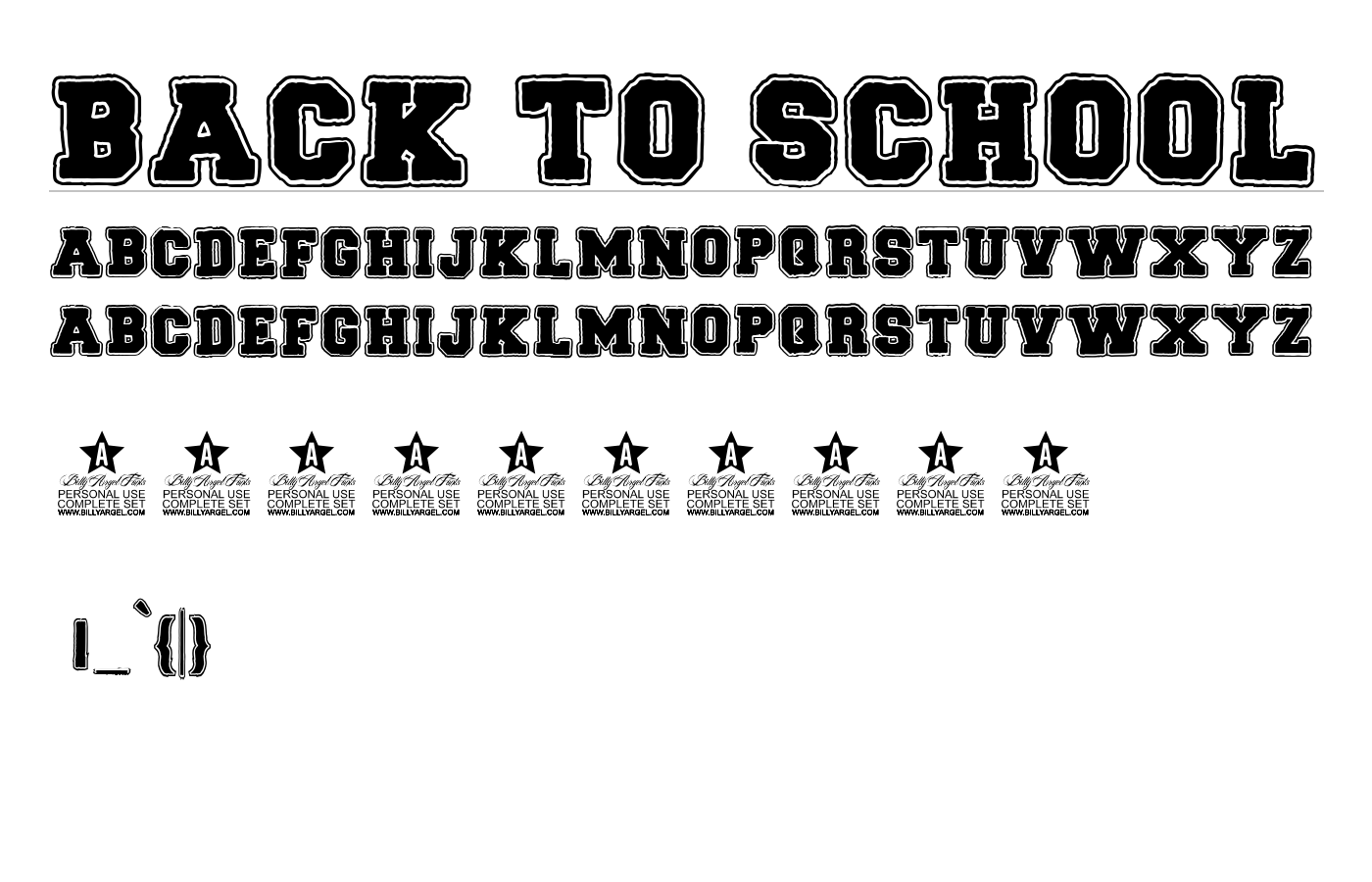
BACK TO SCHOOL is a bold, slab serif font with a playful, slightly rugged outline that evokes a vintage collegiate or sports team spirit. Its thick, blocky letterforms with bracketed serifs and a hand-drawn texture make it perfect for creating eye-catching headlines, posters, or branding that needs a nostalgic yet energetic feel. This font works best for informal, fun designs related to education, sports, or youth culture where a strong, friendly impact is desired.
BACK TO SCHOOL Font
About BACK TO SCHOOL Font
| Font family | BACK TO SCHOOL Font |